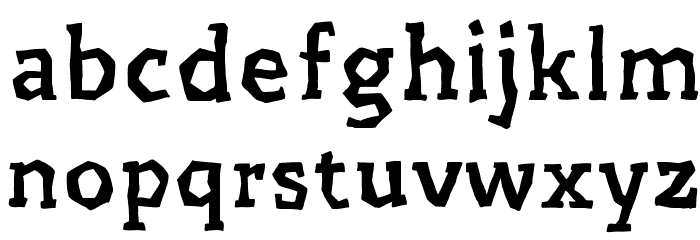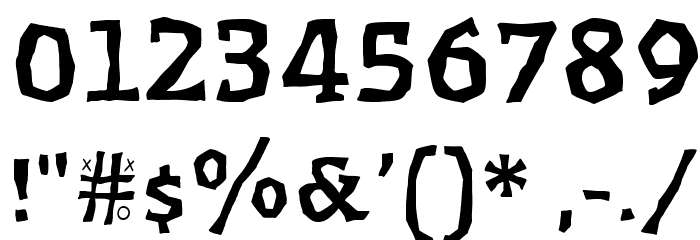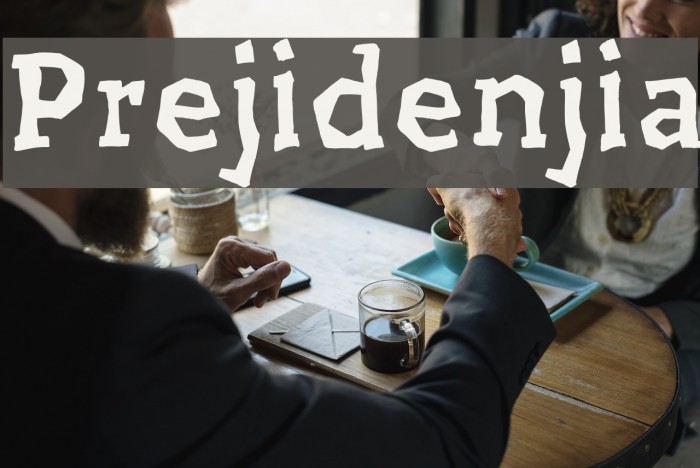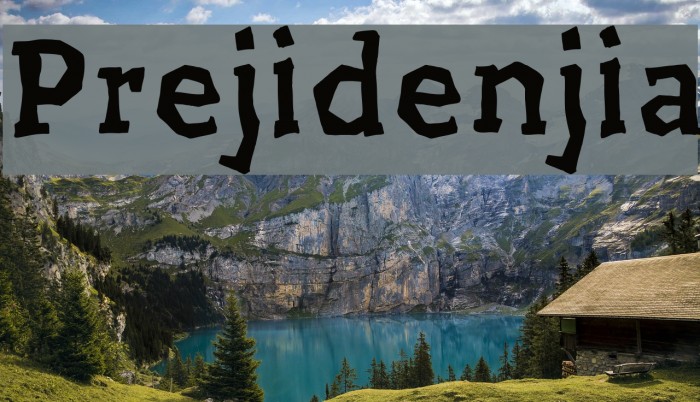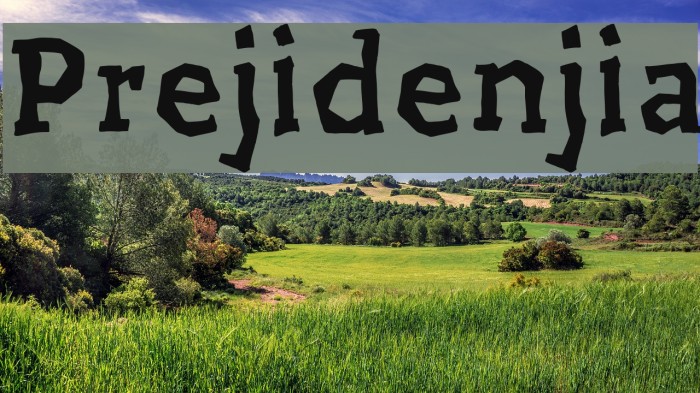
Prejidenjia Font
This font features a bold, rugged style with uneven, hand-drawn strokes that give it a distinctive, organic appearance. The uppercase and lowercase letters maintain a consistent weight, with angular edges and a slightly irregular baseline that adds to its rustic charm. Numbers and special characters follow the same design principles, ensuring a cohesive look across all glyphs. The font's unique character is perfect for projects that require a touch of personality and creativity, making it ideal for artistic and informal applications.
A bold, rugged font with hand-drawn, uneven strokes and angular edges.
- Proposed Projects: Ideal for posters, album covers, branding for artisanal products, and creative projects that require a unique, personal touch.